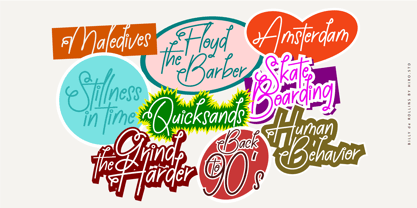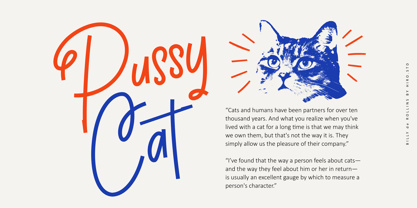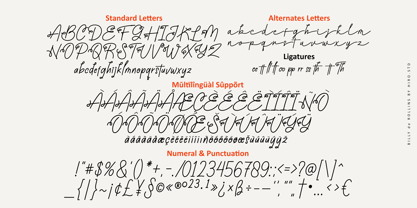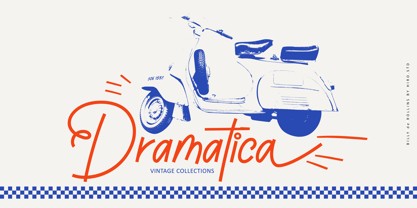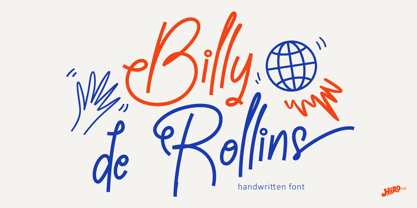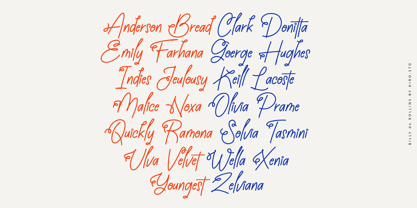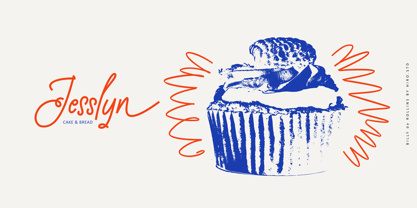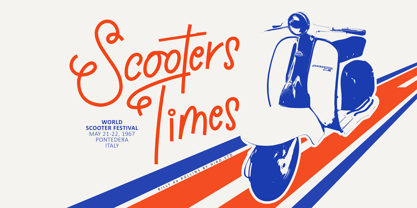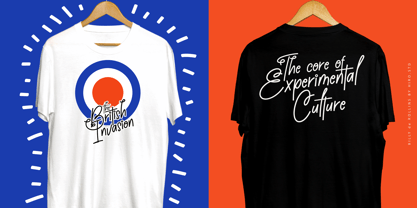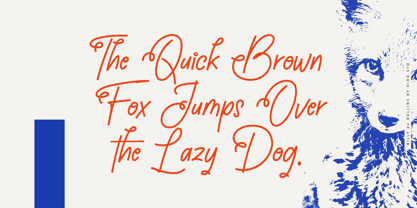
Billy de Rollins
by HIRO.std
The Billy de Rollins Font Family was designed by Chairul Ashar and published by HIRO.std. Billy de Rollins contains 1 styles.
Billy de Rollins is a handwritten font.
This font describes about modern, simple, dynamic, sub culture, scooter, britpop, clean and easy to use.
FEATURES
- Uppercase and lowercase letters
- Numbering and Punctuations
- Multilingual Support
USE
Billy de Rollins works great in movie title, merchandise, logotype, magazine, apparel, and any projects that need cool handwritten taste.
Designers: Chairul Ashar
Publisher: HIRO.std
Foundry: HIRO.std